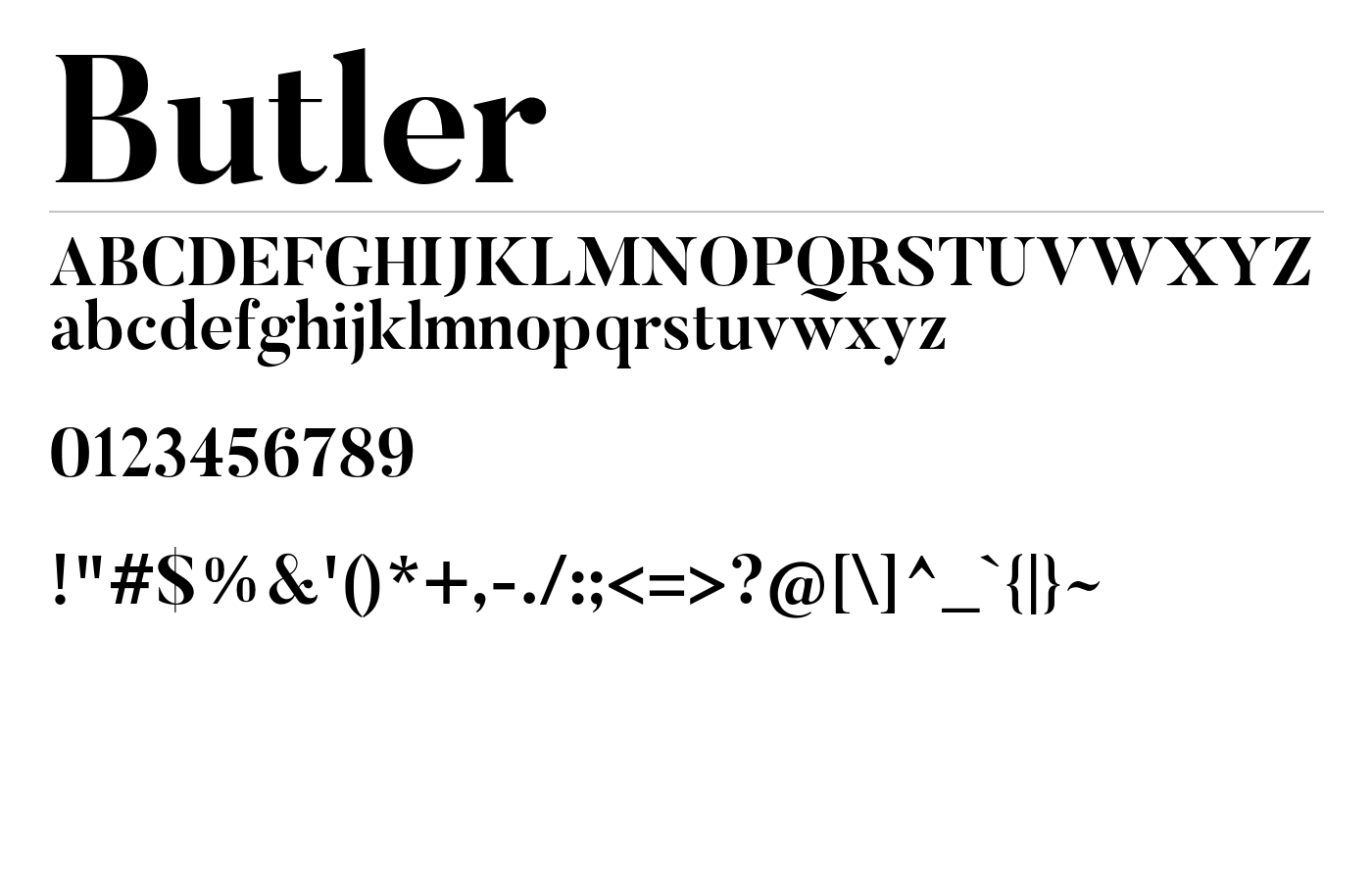
Butler is a sophisticated serif font that blends classic elegance with modern design, featuring sharp, high-contrast strokes and clean bracketed serifs. Its balanced proportions and distinctive details, such as the double-story "a" and "g," make it perfect for upscale branding, editorial headlines, and luxury packaging where a refined yet contemporary feel is desired. This font shines in large sizes, lending a stylish and polished look to any project needing a touch of timeless sophistication.
Butler Font
About Butler Font
| Designer | Fabian De Smet |